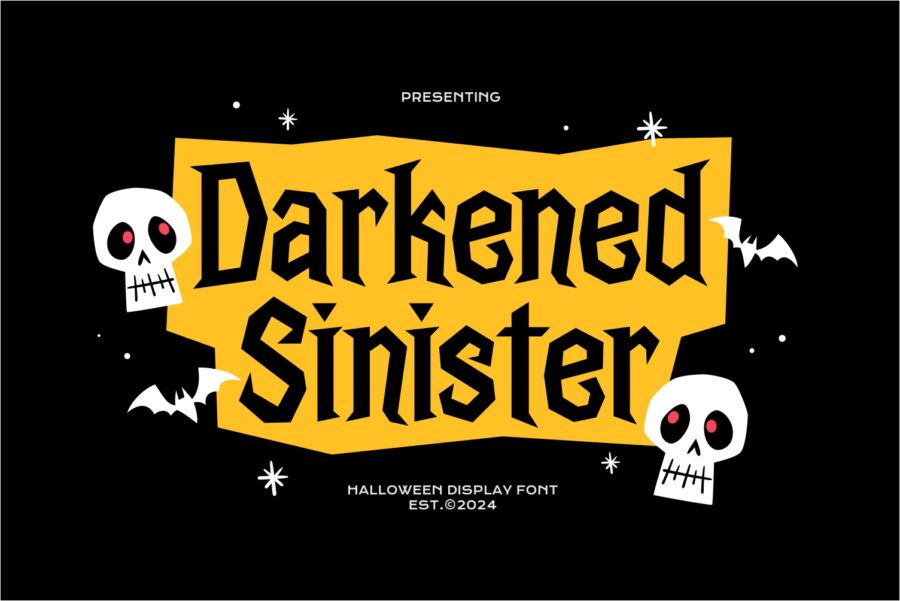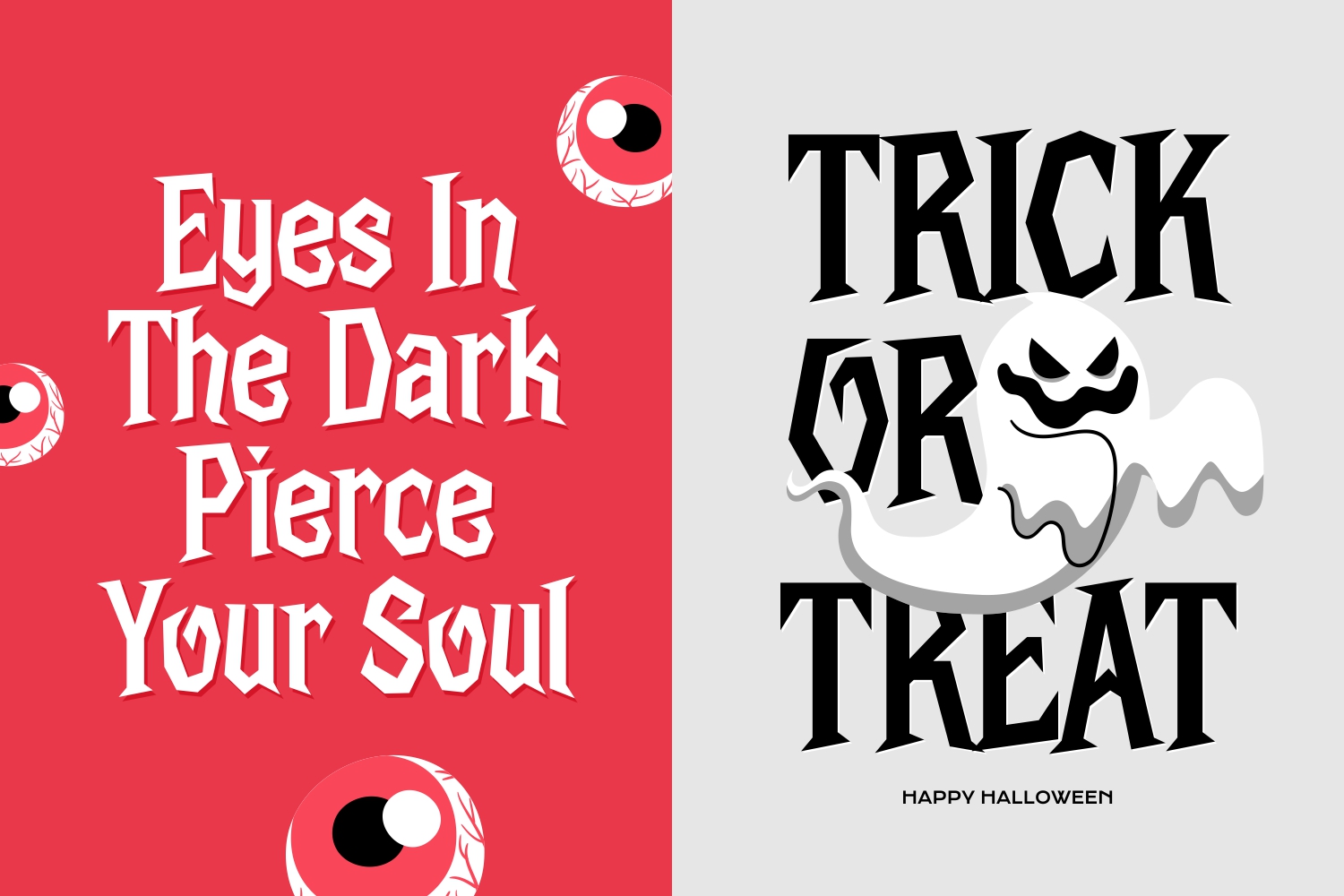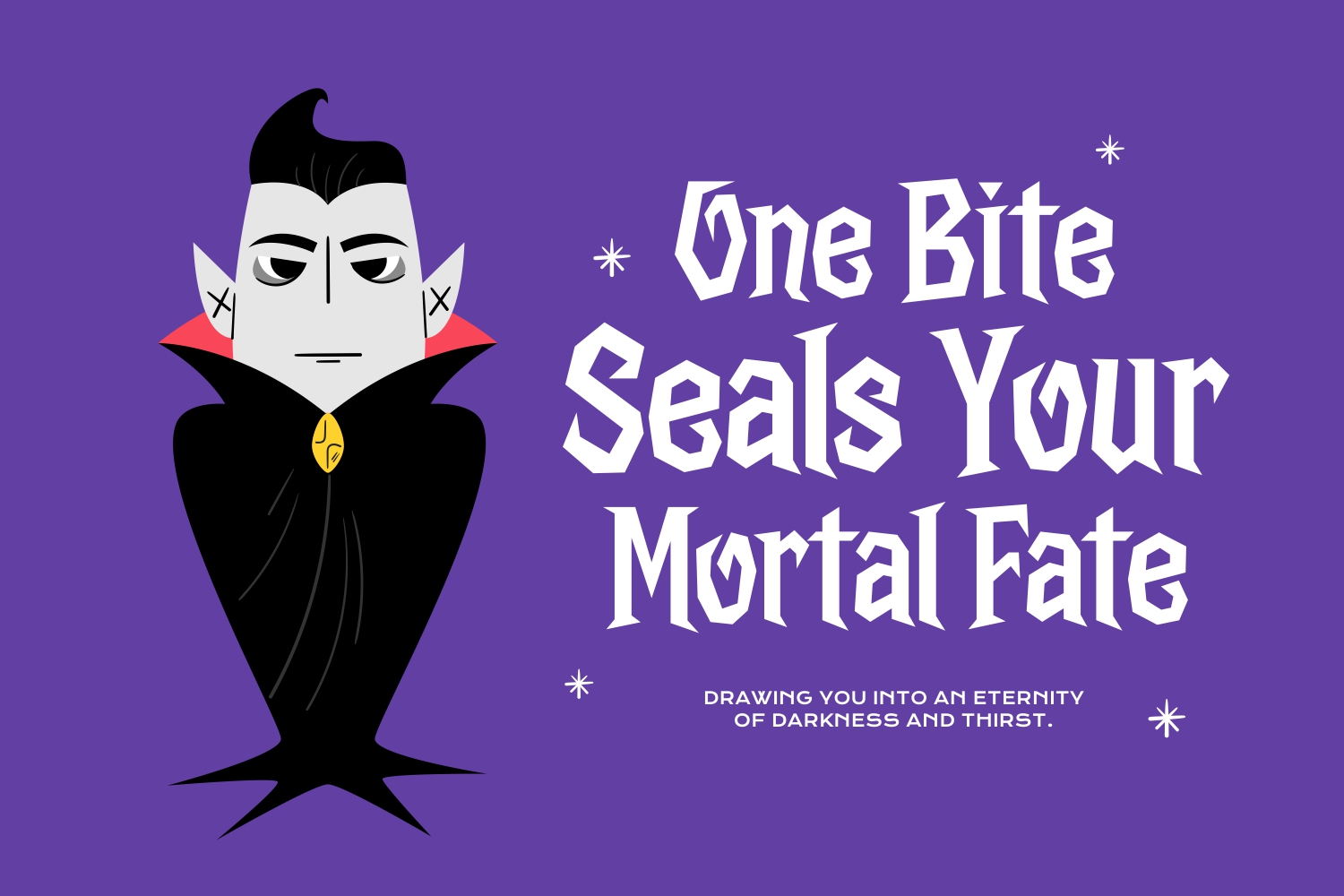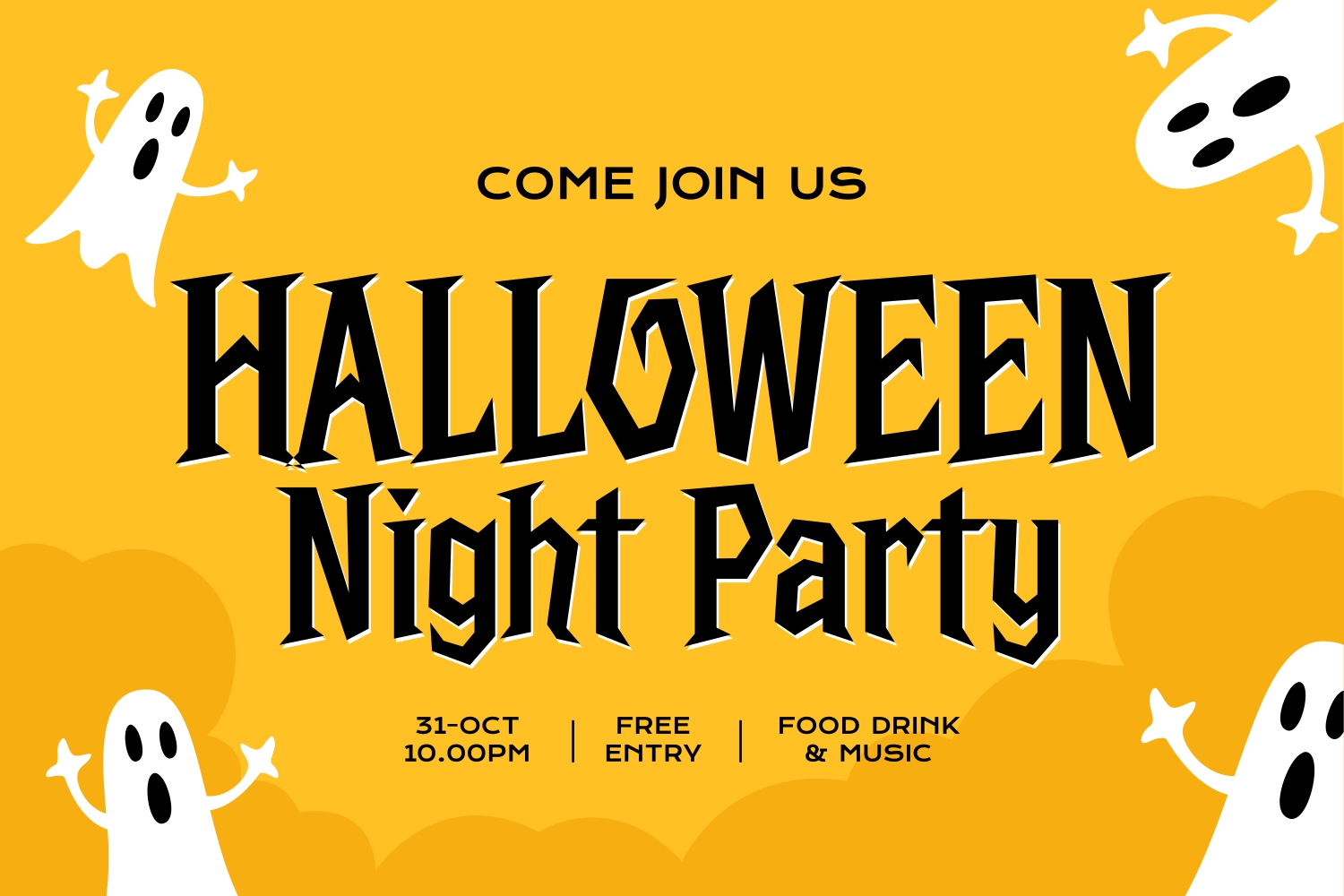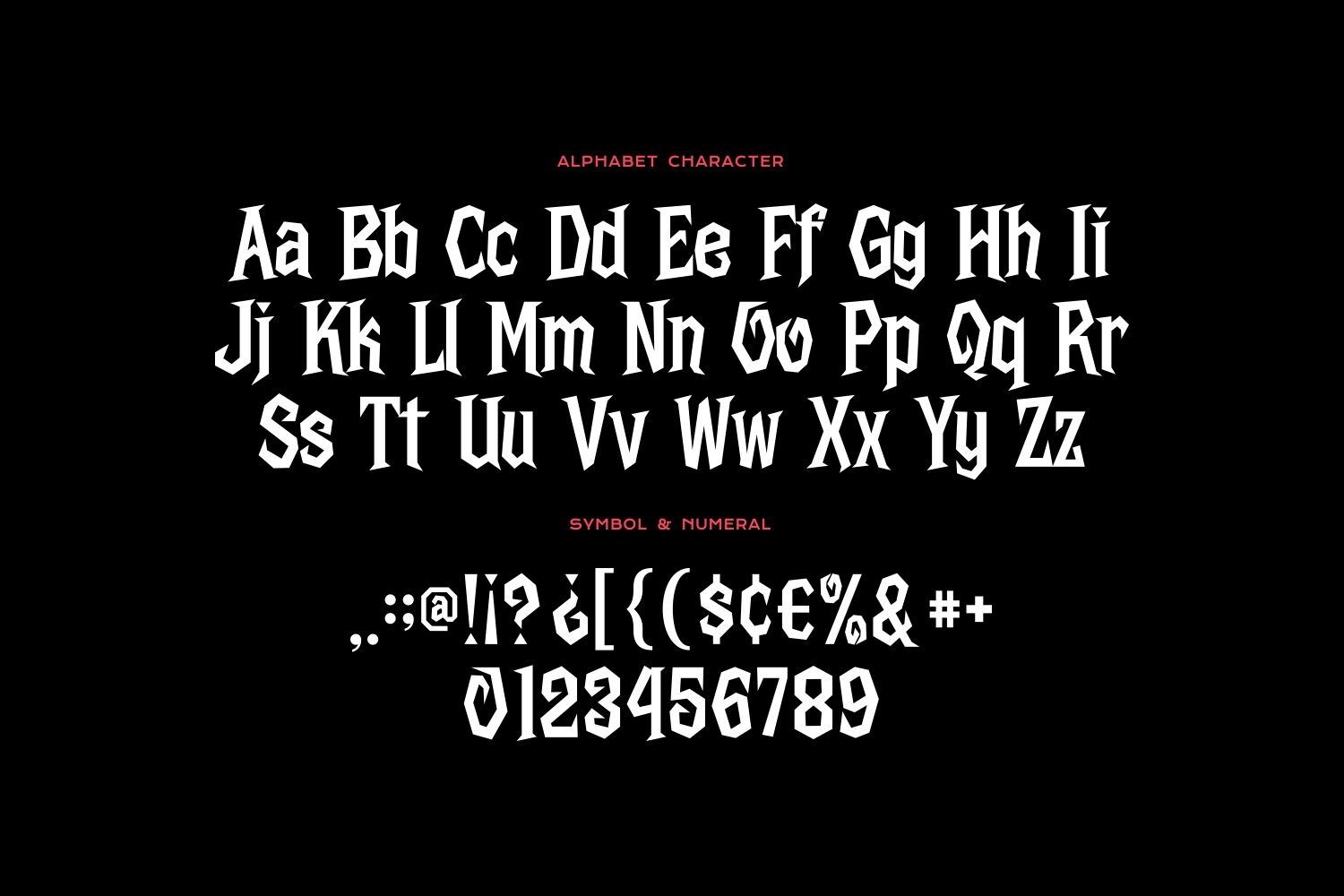
Introducing Darkened Sinister, a spooky and sharp-edged display font crafted to bring your Halloween designs to life. With its gothic-inspired letterforms and angular strokes, this typeface delivers a perfect mix of eerie elegance and playful horror. Whether you’re creating posters, party invitations, or themed merchandise, Darkened Sinister sets the mood with unmistakable Halloween charm.
This font includes a full set of uppercase and lowercase letters, numbers, and special symbols, all styled to match the haunting aesthetic. From vampire quotes to trick-or-treat banners, Darkened Sinister adds a spine-chilling impact that will captivate your audience. Enter the darkness with style, Darkened Sinister is your go-to for all things sinister and seasonal.